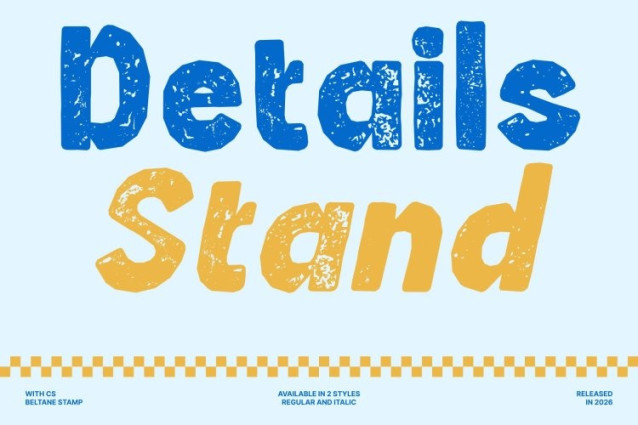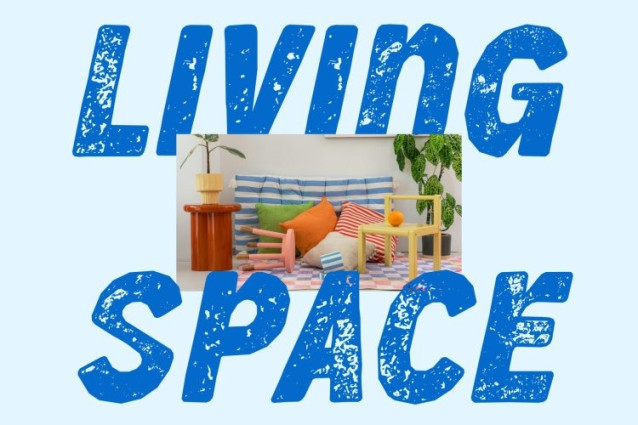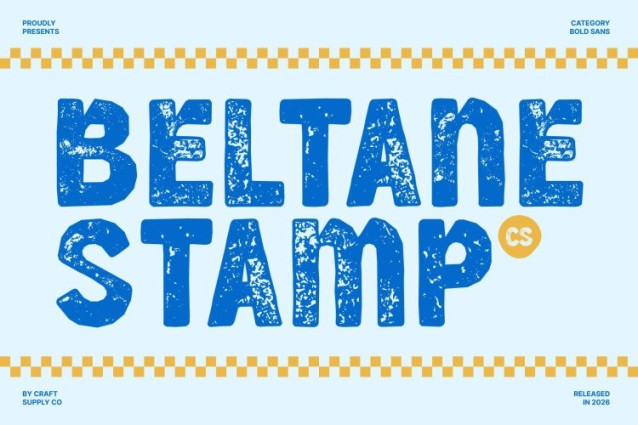
CS Beltane Stamp Font
CS Beltane Stamp Font This is a striking modern sans-serif display typeface that effortlessly combines strong, clean lines with a classic, refined aesthetic. Its bold letterforms are designed to make a powerful statement while maintaining a sense of timeless elegance. The font balances contemporary simplicity with traditional sophistication, making it a versatile choice for both modern and classic designs. Its robust structure ensures clarity and authority in every composition.
Vintage Stamp Texture with Artistic Character
Enhanced with a stamped texture, gains a distinctive vintage personality. The subtle imperfections and worn details introduce an artistic, handcrafted feel reminiscent of old printing techniques and retro signage. This textured finish adds depth and visual interest, giving the font an authentic aged character while preserving its bold readability.
High Visibility and Impact for Bold Designs
With its thick, sturdy letterforms, guarantees high visibility and strong visual impact across all applications. It excels in projects that require attention-grabbing typography such as branding, advertisements, posters, and editorial layouts. The bold shapes command focus instantly, while the stamp effect adds personality and texture that elevate the overall design.
Versatile for Modern and Classic Applications
Despite its bold and textured appearance, remains remarkably versatile. Its contemporary sans-serif foundation blends seamlessly with classic design elements, allowing it to work beautifully in both traditional and modern contexts. From vintage-inspired branding and packaging to modern promotional visuals, this font delivers a confident, timeless presence with artistic charm.